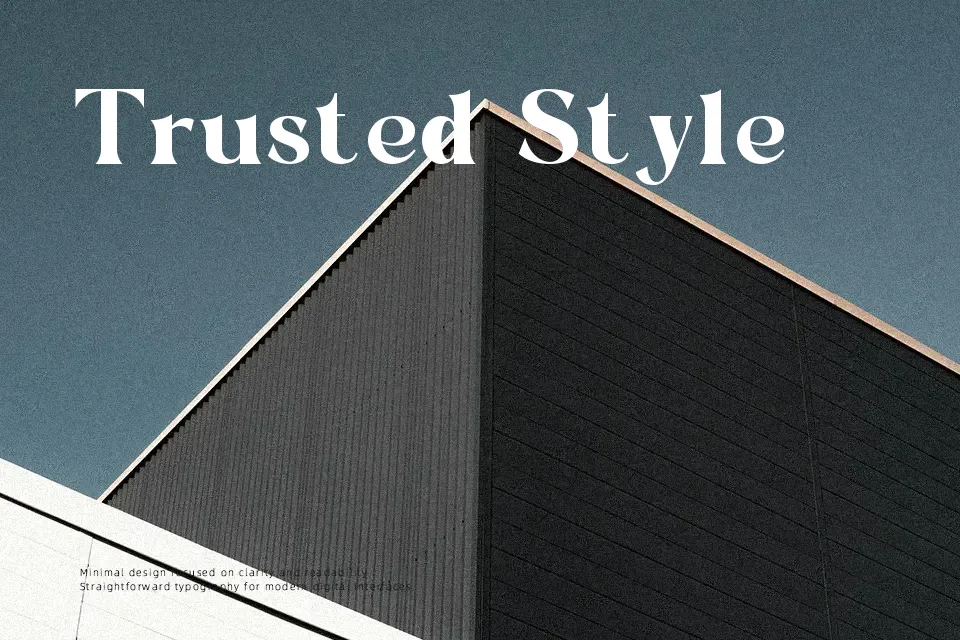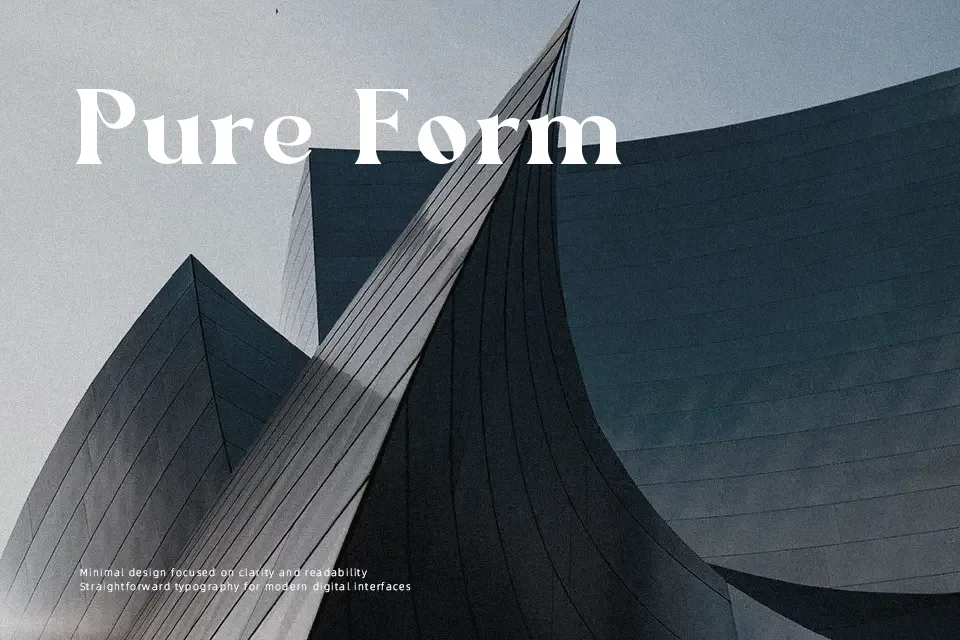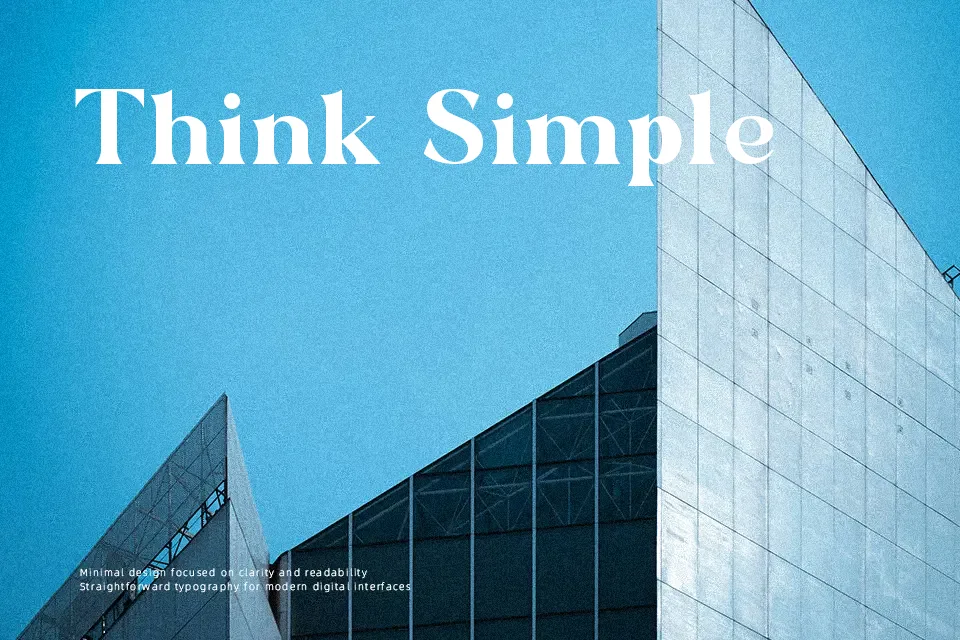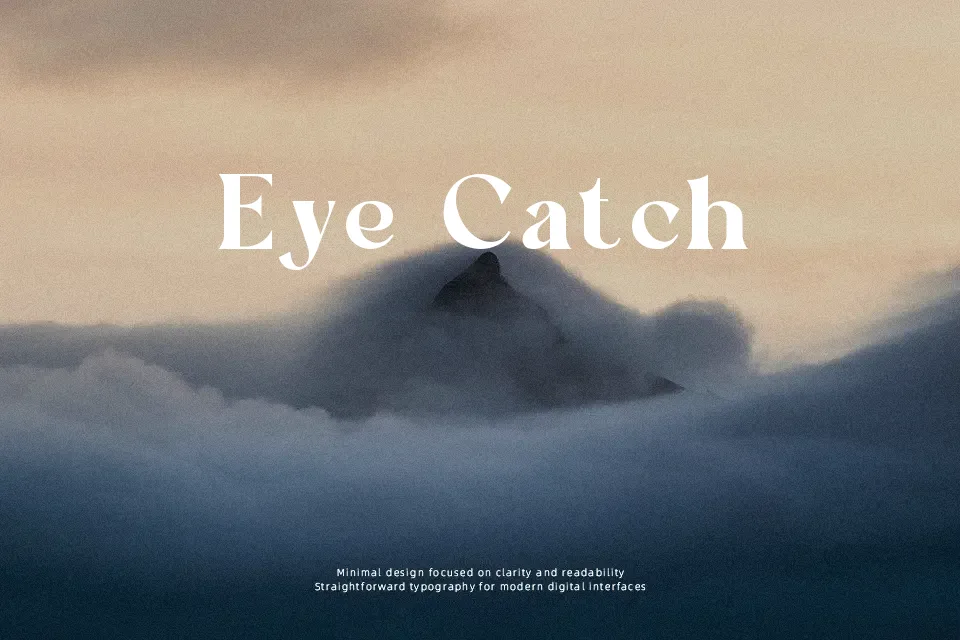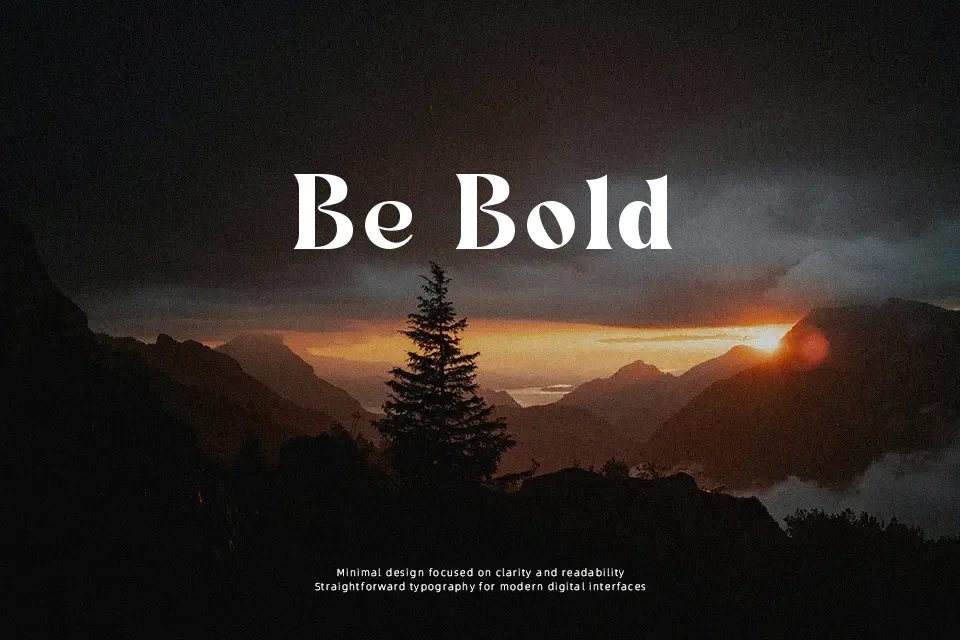
Novaria Font
Novaria Font works best as a large-scale serif display face with narrow proportions, sharp serifs, and noticeable thick-to-thin stroke contrast. The uppercase letters create a composed, formal rhythm, while the lowercase forms bring softer curves and decorative movement to short text. Spacing appears balanced enough for headlines and wordmarks, although the finer details need room to breathe. It is well suited to invitation titles, cosmetic labels, and fashion-oriented graphics. The typeface has stronger visual presence in larger settings; small captions and extended passages can make its delicate features harder to read comfortably.
Best For: fashion magazine headlines,wedding invitation titles,cosmetic packaging,restaurant signage
Perfect for fashion, invitation, and logo, with a artistic and decorative style.